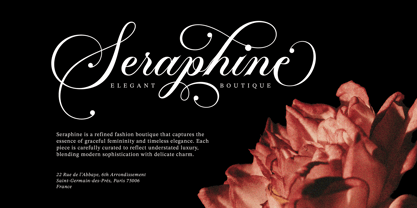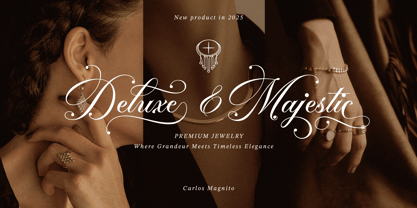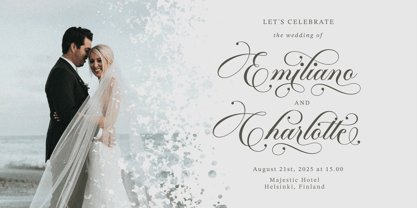
Bergstena Script
by Mans Greback
The Bergstena Script Font Family was designed by Måns Grebäck and published by Mans Greback. Bergstena Script contains 3 styles and family package options. More about this family
Bergstena Script is a luxurious and decorative calligraphy font with a distinctively elegant attitude. The uppercase letters are finely sculpted with ornate loops and sweeping curves, capturing the essence of formal penmanship and ornamental signage from the past. Meanwhile, the lowercase set flows with smooth rhythm, retaining a soft, legible structure.
This typeface evokes the ambiance of handwritten wedding invitations or a personal letter. Each character feels carefully crafted, as if pulled from the nib of a master calligrapher’s pen.
The font is built with advanced OpenType functionality and guaranteed top-notch quality, containing stylistic and contextual alternates, ligatures and more automatic and manual features; all to give you full control and customizability.
It has extensive lingual support, covering all Latin-based languages, from North Europa to South Africa, from America to South-East Asia. It contains all characters and symbols you'll ever need, including all punctuation and numbers.
Designed and produced by Mans Greback, a type designer specializing in high-quality script fonts for over a decade. His work blends classic craftsmanship with modern font technology, resulting in timeless and versatile typefaces.